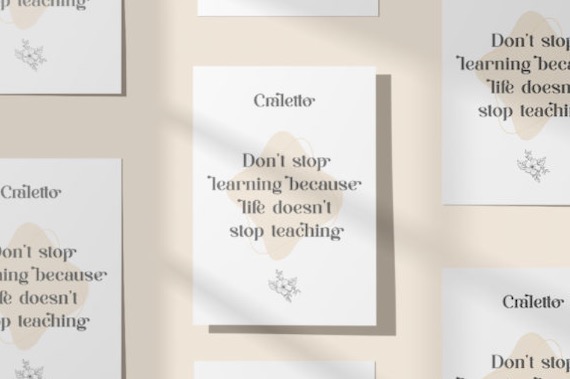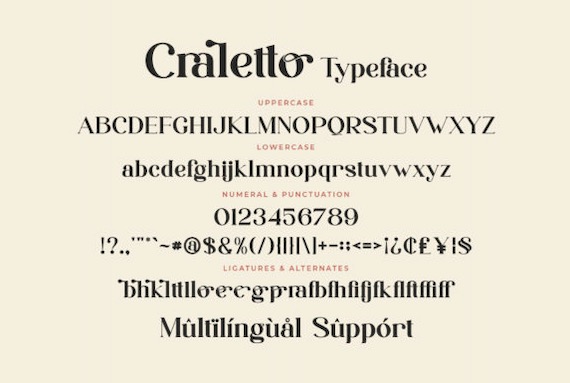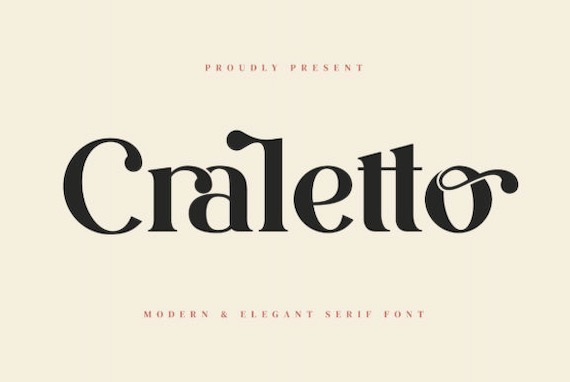
Craletto Font is an elegant serif typeface that was created and shared by Aqeel_Art. This typeface will elevate a wide range of crafting ideas, from cards to branding, labels, and much more. Add it confidently to your favorite creations and let yourself be amazed by the outcome generated.
Craletto Serif Font